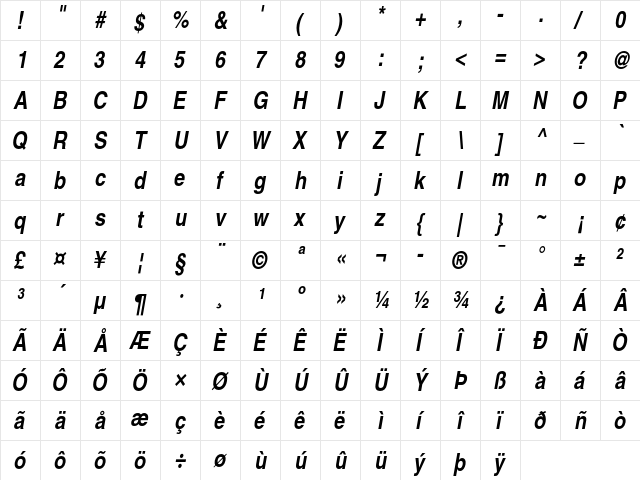
Helvetica Bold Narrow Oblique Font Preview
Design Context for Helvetica Typeface
Helvetica offers clean, dependable letterforms without strong stylistic allegiance, making it a practical choice for designers who need flexibility. The dynamic lean of this cut emphasises speed and emphasis in any layout. The heavy weight commands attention and anchors typographic hierarchies. Its narrow stance lets it pack a punch even in space-constrained designs.
Pro Tip: Try Helvetica for annotation and caption copy alongside an upright companion — the contrast in angle creates a dynamic but ordered typographic system.